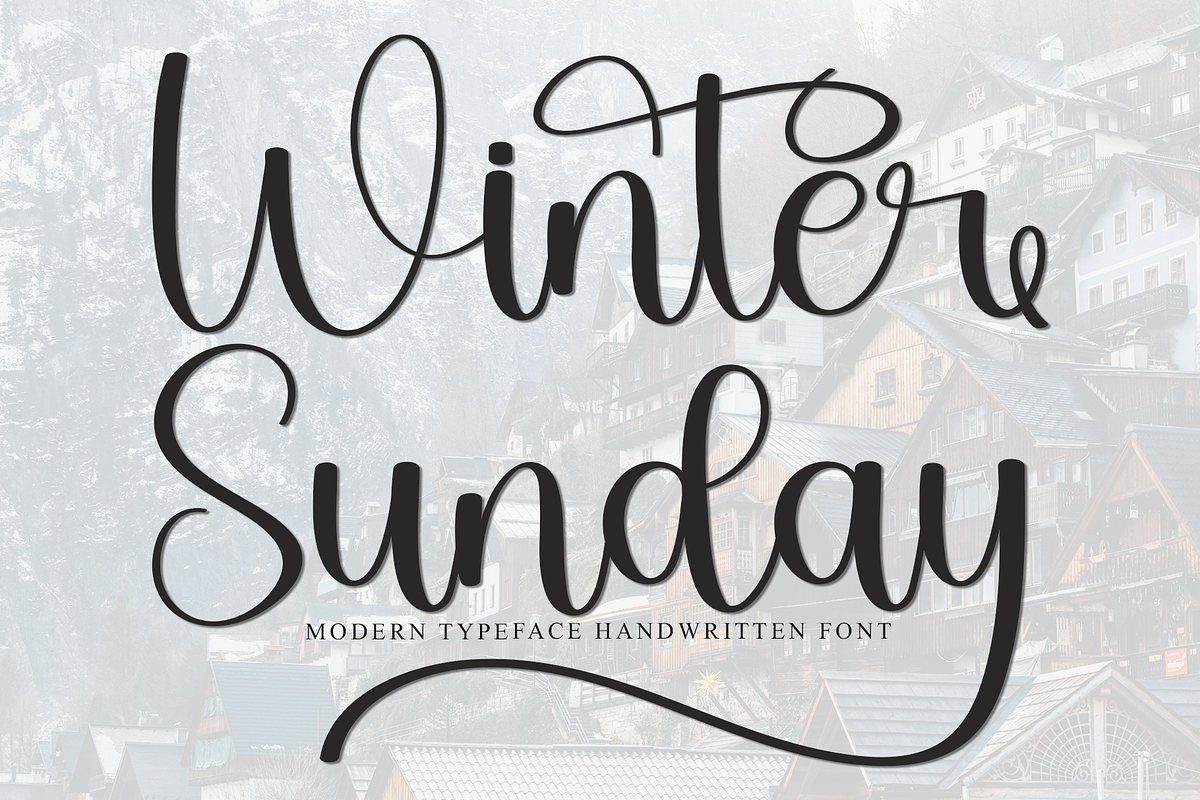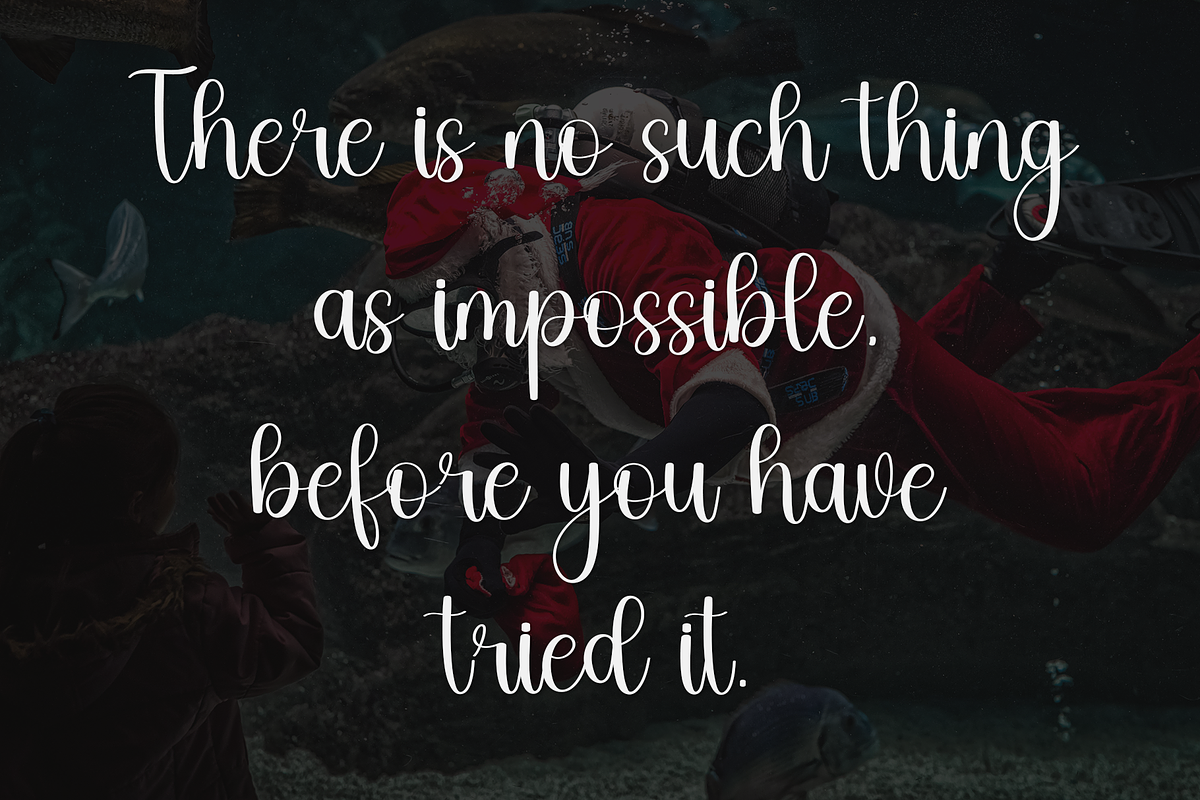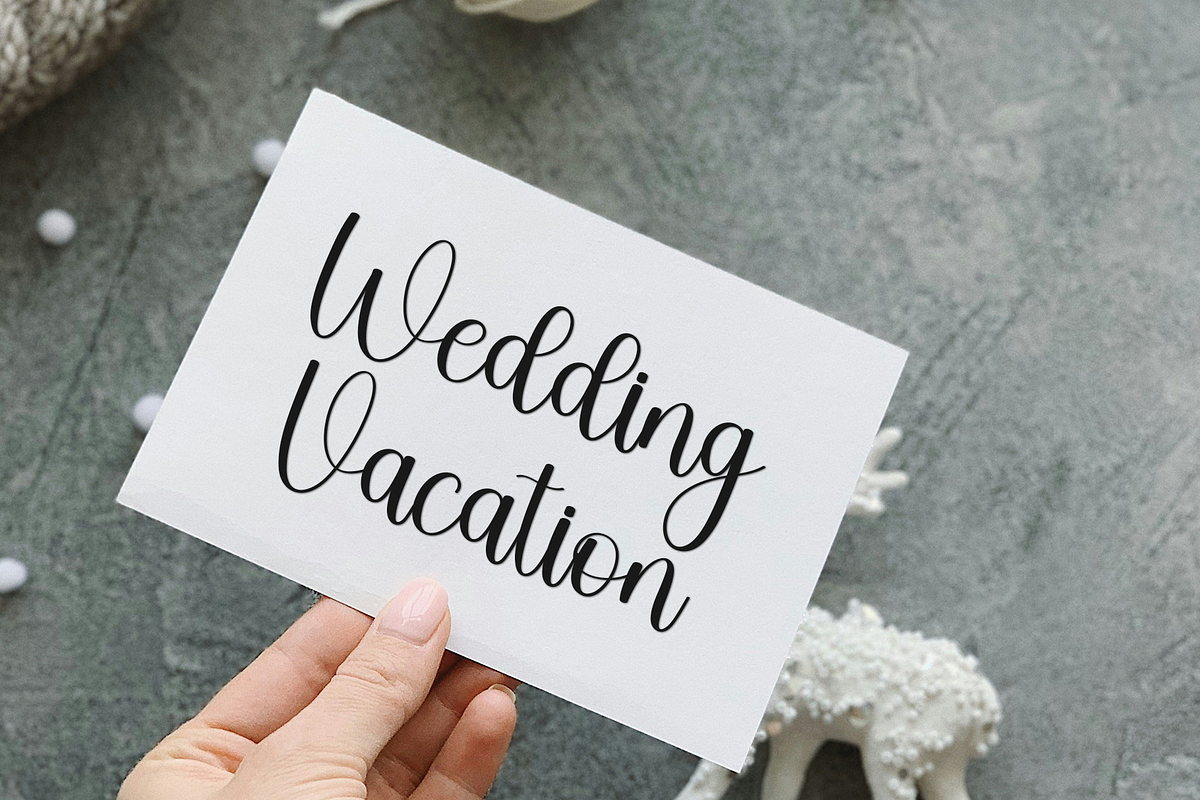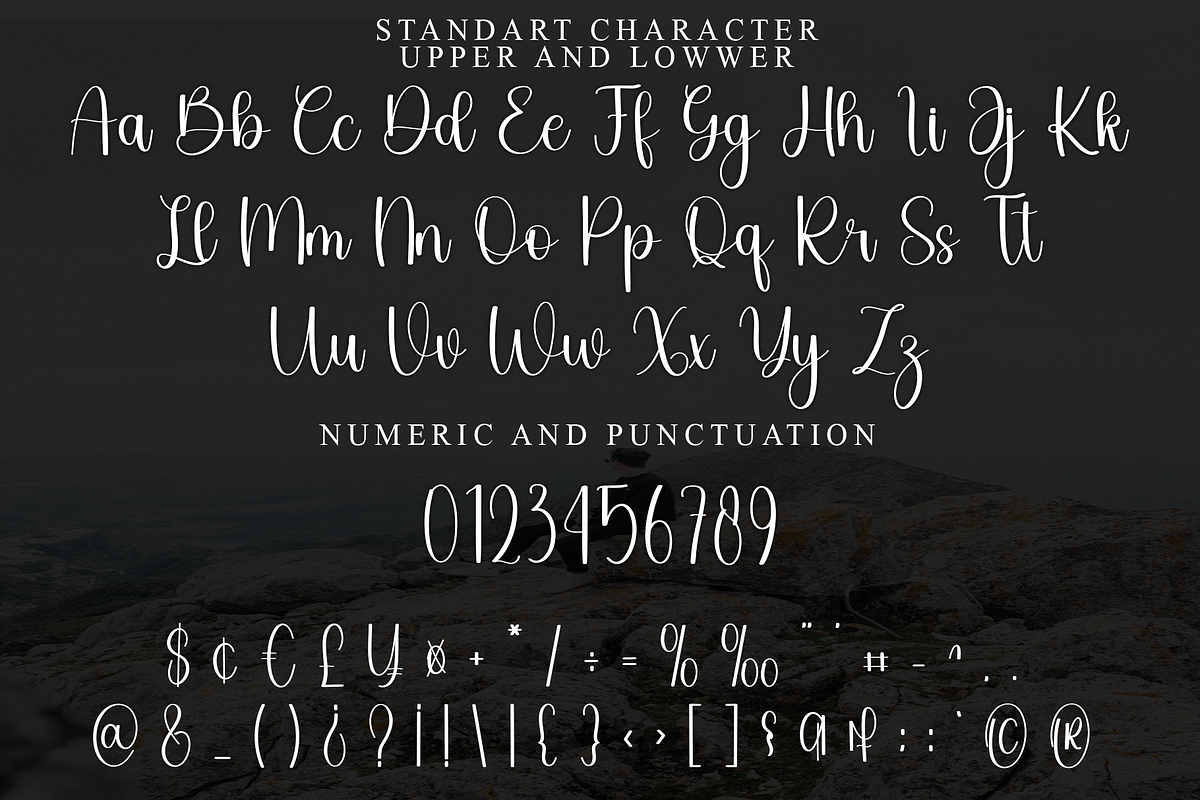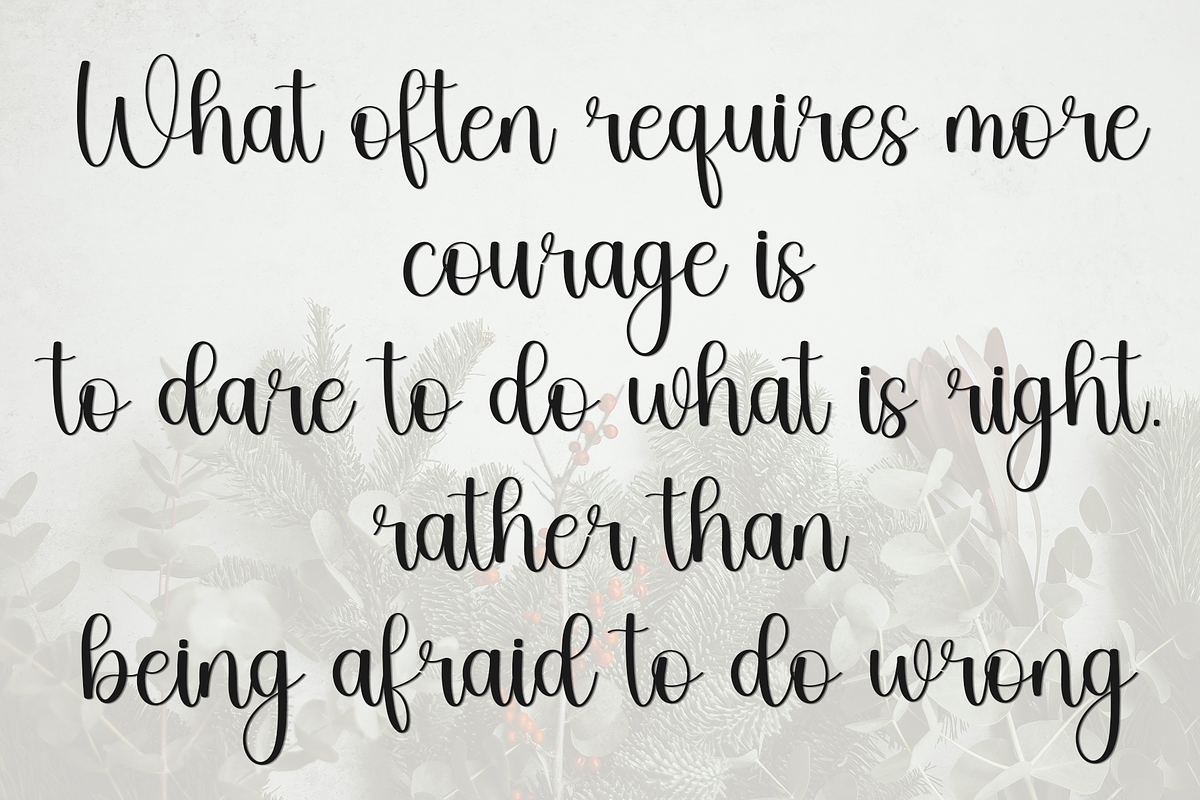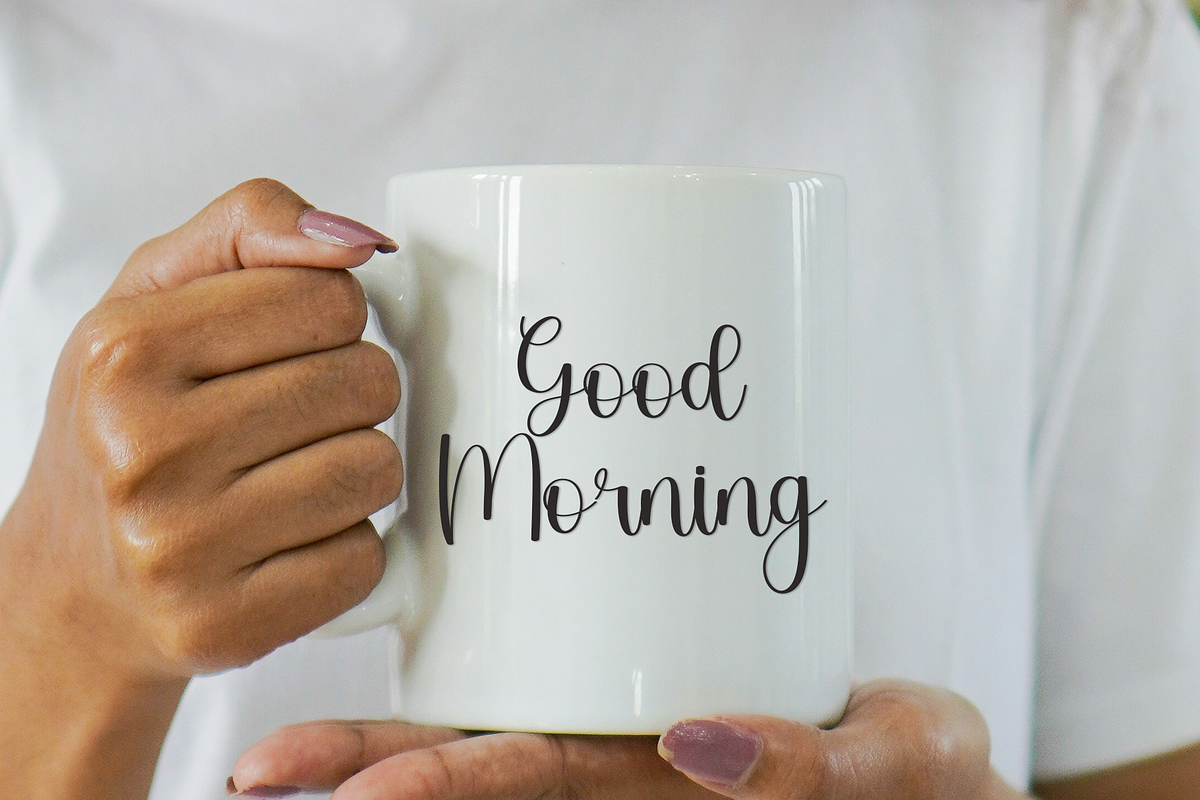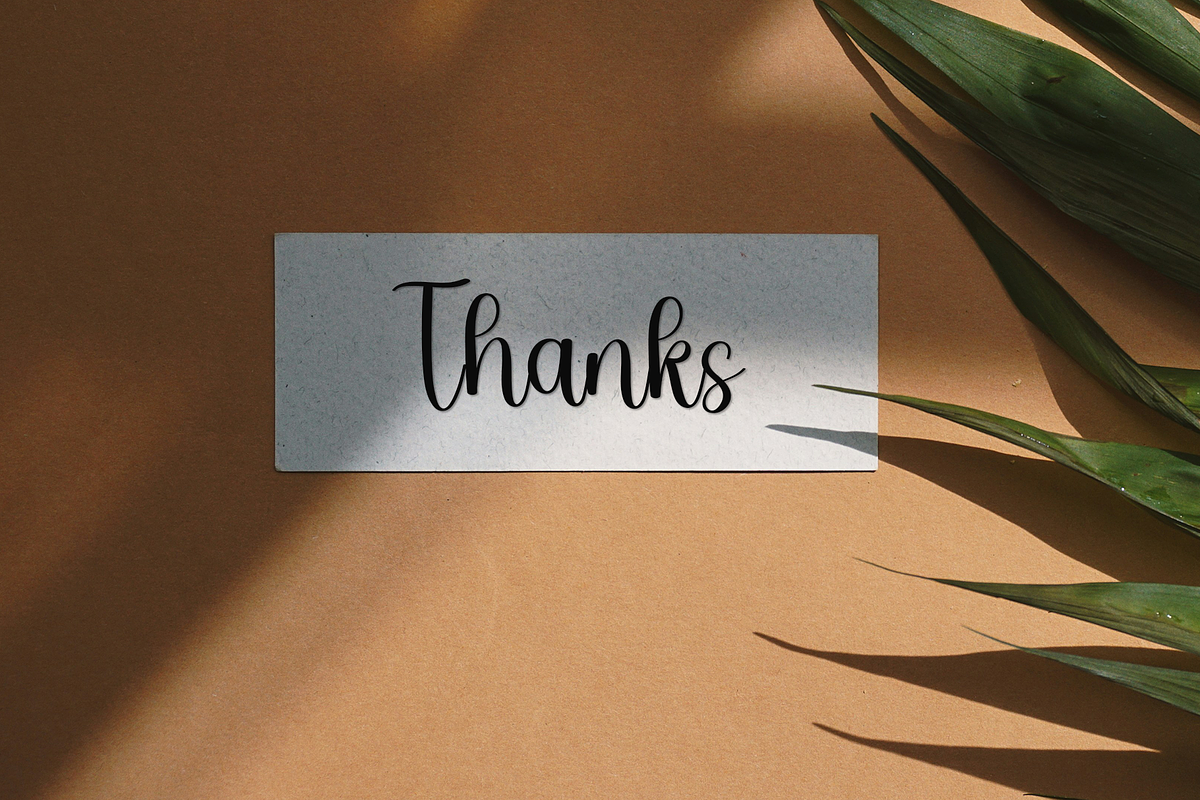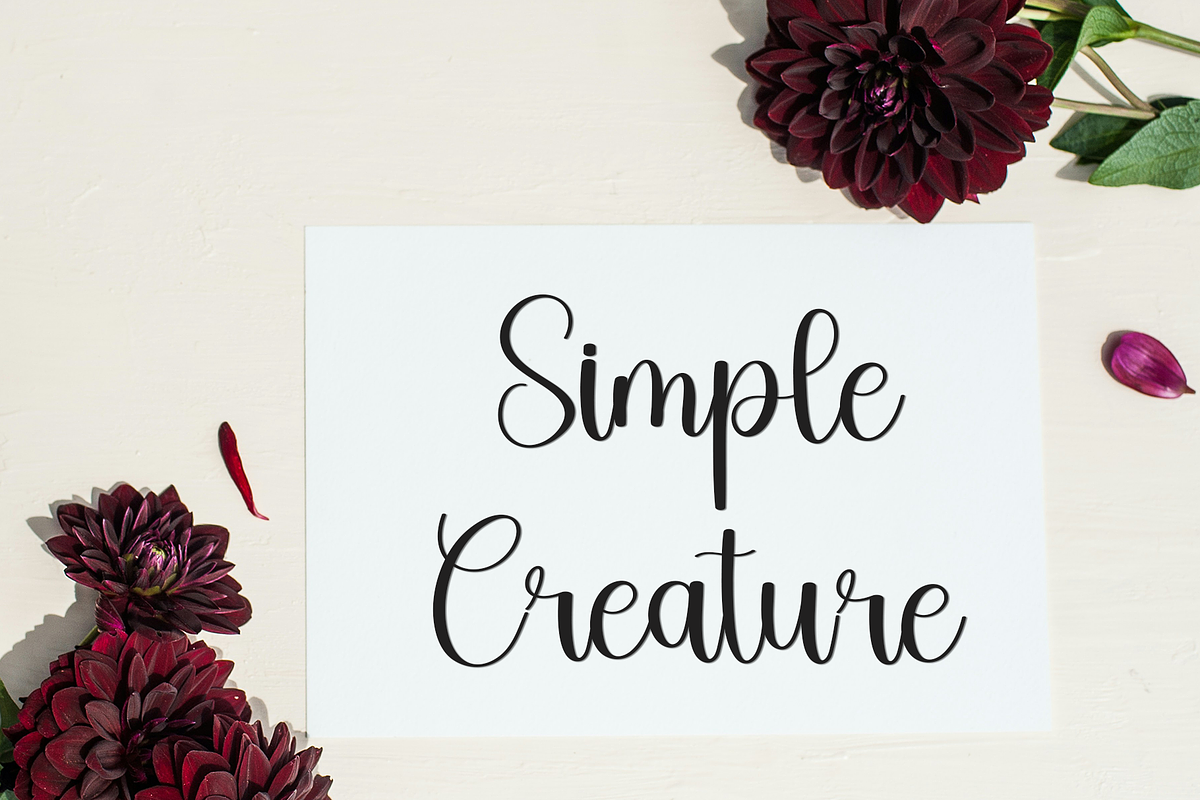
Winter Sunday
Winter Sunday is a beautiful and eye-catching font designed with a soft, unique touch. Its distinctive strokes give it a special character, making it meaningful and versatile for future use. With various characters, it’s perfect for design projects, crafts, and other creative works.